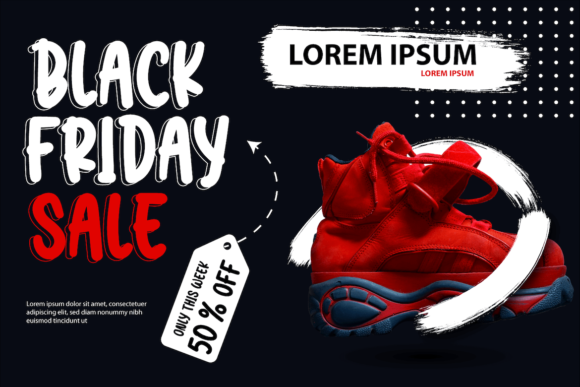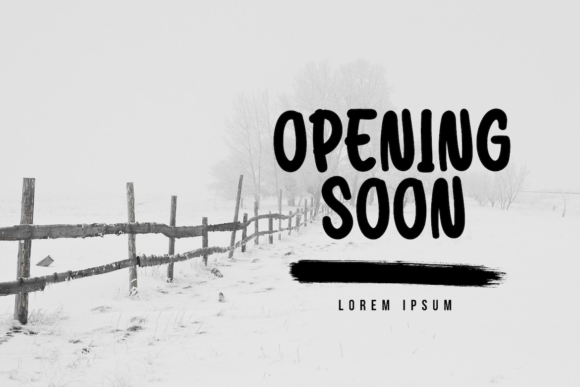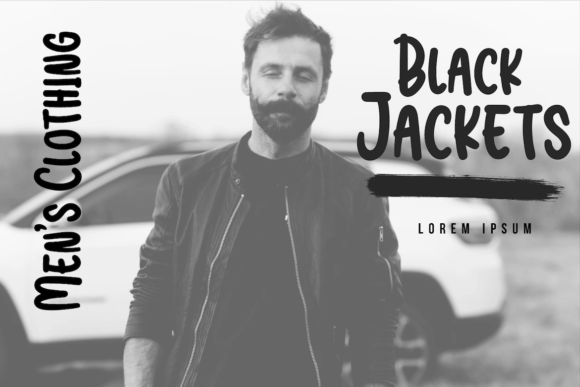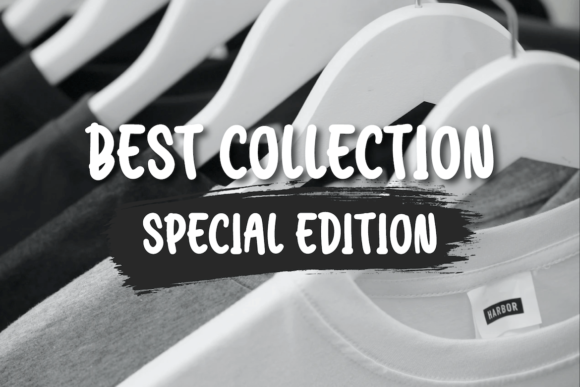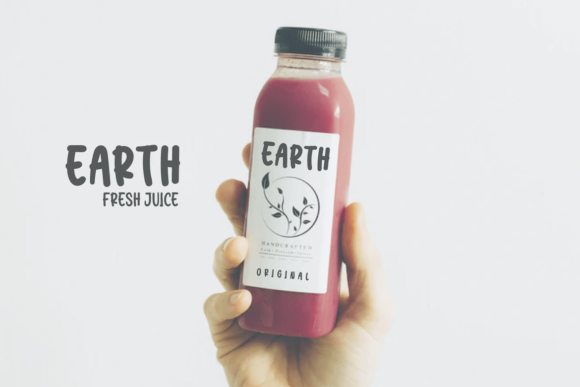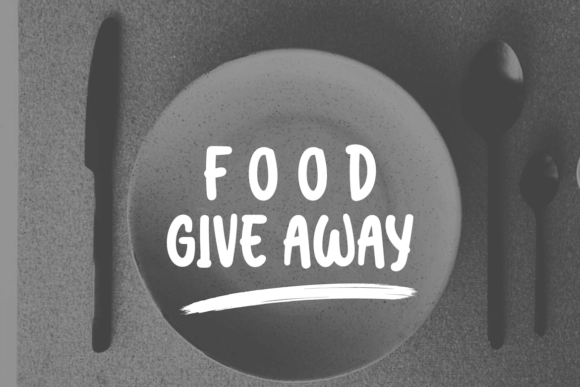
Introducing Barbeque Font: The Perfect Addition to Your Design Arsenal
Are you tired of using the same old fonts in your designs? Look no further! Barbeque Font is here to shake things up and bring a fresh, cool, and friendly vibe to your projects. This brushed display font is perfect for designers and crafters looking to add a personal touch to their work.
What is Barbeque Font?
Barbeque Font is a unique and stylish font that boasts a distinctive brushed look. Its cool and friendly demeanor makes it an excellent choice for a wide range of design applications, from posters and flyers to prints and more. With its endless possibilities, Barbeque Font is sure to become a staple in your design toolkit.
Key Features of Barbeque Font
- Brushed Display Font: Barbeque Font features a beautiful brushed look that gives it a personal and handcrafted feel.
- Cool and Friendly: The font’s unique style exudes a cool and friendly vibe, making it perfect for designs that require a touch of personality.
- Highly Versatile: Barbeque Font can be used on a wide range of design materials, including posters, flyers, prints, and more.
- Easy to Use: With its clean and simple design, Barbeque Font is easy to use and pairs well with a variety of other fonts.
Why Choose Barbeque Font?
So, why should you choose Barbeque Font for your designs? Here are just a few compelling reasons:
- Adds a Personal Touch: Barbeque Font’s unique brushed look and friendly vibe add a personal touch to your designs, setting them apart from the rest.
- Perfect for Creative Projects: Whether you’re working on a poster, flyer, or print, Barbeque Font is the perfect choice for creative projects that require a bit of flair.
- Endless Possibilities: With Barbeque Font, the possibilities are endless. Use it to create stunning designs that showcase your creativity and style.
How to Use Barbeque Font in Your Designs
Using Barbeque Font in your designs is easy! Here are a few tips to get you started:
- Pair it with Other Fonts: Barbeque Font pairs well with a variety of other fonts, so don’t be afraid to experiment and find the perfect combination for your design.
- Experiment with Colors: The brushed look of Barbeque Font looks great in a variety of colors, so try experimenting with different hues to find the perfect one for your design.
- Use it for Headings and Titles: Barbeque Font is perfect for headings and titles, where its unique style can really shine.
Tips and Tricks for Working with Barbeque Font
Here are a few more tips and tricks to help you get the most out of Barbeque Font:
- Use it for DIY Projects: Barbeque Font is perfect for DIY projects, such as crafting and scrapbooking.
- Try it on Social Media: Use Barbeque Font to create eye-catching social media graphics that showcase your personality and style.
- Experiment with Different Sizes: Barbeque Font looks great in a variety of sizes, so don’t be afraid to experiment and find the perfect size for your design.
In conclusion, Barbeque Font is a cool and friendly brushed display font that’s perfect for designers and crafters looking to add a personal touch to their work. With its endless possibilities and highly versatile design, Barbeque Font is sure to become a staple in your design toolkit. So why wait? Download Barbeque Font today and start exploring its endless possibilities!